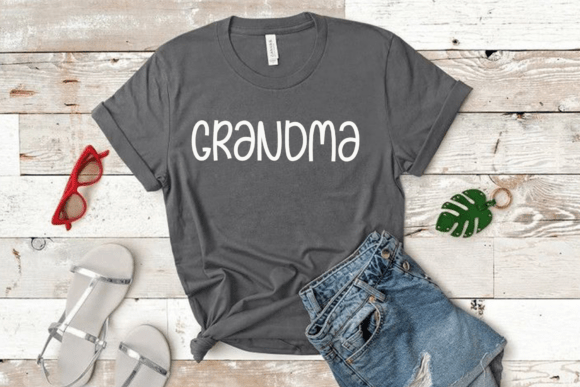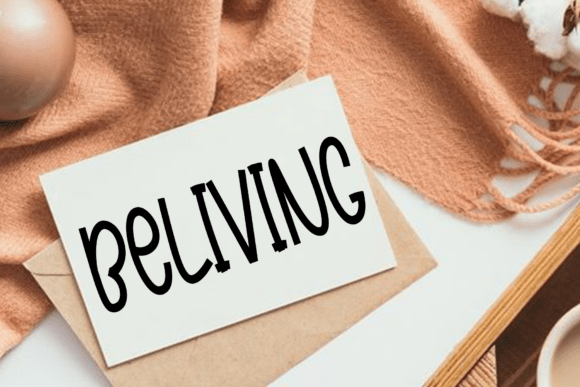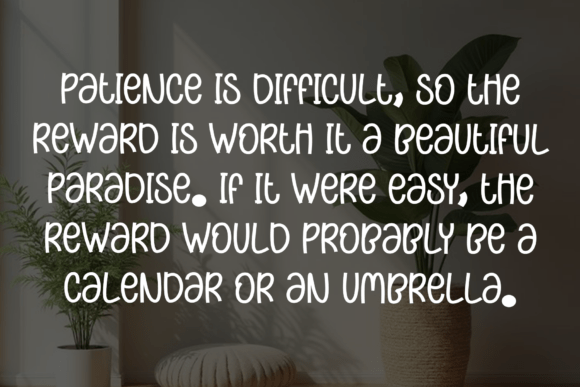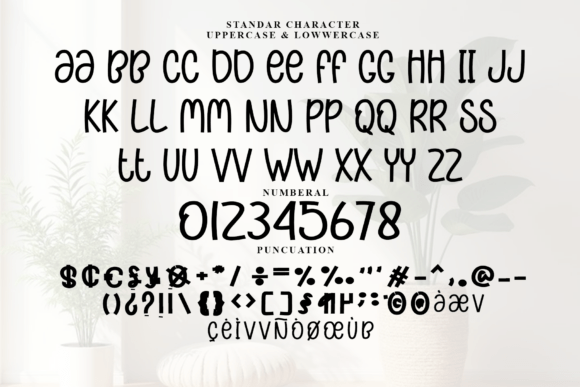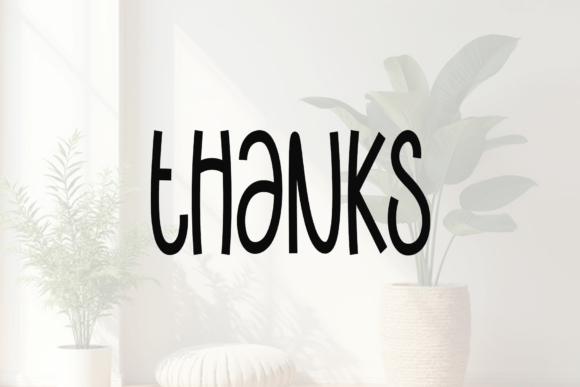
Introducing Black History Font: A Stylish Handwritten Typeface with a Unique Charm
Are you tired of using the same old fonts in your designs? Look no further! Black History Font is a stylish handwritten font that blends organic charm with a strong typographic presence, making it perfect for designers and crafters looking to add a touch of personality to their work.
What Makes Black History Font Special?
Black History Font features thick, solid strokes with a distinct “bouncy” rhythm that gives it a friendly and approachable character. This unique trait sets it apart from other fonts and makes it perfect for designs that need a bit of personality. Whether you’re working on outdoor lifestyle branding, organic product packaging, travel-themed graphics, or rustic event invitations, Black History Font is the perfect choice.
Part of the “Unique and Professional” Collection
Black History Font is part of the “Unique and Professional” collection, which means it’s not only stylish but also highly versatile. Its well-balanced proportions ensure it remains impactful even in busy designs, making it perfect for a wide range of applications. Whether you’re designing a logo, brochure, or social media graphic, Black History Font is sure to make a statement.
Perfect for Outdoor Lifestyle Branding
If you’re working on outdoor lifestyle branding, Black History Font is the perfect choice. Its rugged, handmade look is perfect for brands that want to convey a sense of adventure and freedom. Whether you’re designing a logo for a hiking company or a camping gear brand, Black History Font is sure to resonate with your target audience.
Organic Product Packaging
Black History Font is also perfect for organic product packaging. Its natural, earthy feel is perfect for brands that want to convey a sense of sustainability and eco-friendliness. Whether you’re designing packaging for a food product, skincare brand, or home goods company, Black History Font is sure to add a touch of warmth and personality to your design.
Travel-Themed Graphics
If you’re working on travel-themed graphics, Black History Font is a great choice. Its adventurous, handmade look is perfect for travel companies that want to convey a sense of excitement and exploration. Whether you’re designing a brochure for a travel agency or a social media graphic for a tourism board, Black History Font is sure to capture the spirit of adventure.
Rustic Event Invitations
Finally, Black History Font is perfect for rustic event invitations. Its handmade look is perfect for events that want to convey a sense of warmth and personality. Whether you’re designing invitations for a wedding, birthday party, or corporate event, Black History Font is sure to add a touch of elegance and sophistication to your design.
Key Features of Black History Font
- Stylish handwritten font: Black History Font is a unique and stylish handwritten font that adds a touch of personality to any design.
- Organic charm: Black History Font features thick, solid strokes with a distinct “bouncy” rhythm that gives it a friendly and approachable character.
- Strong typographic presence: Despite its organic charm, Black History Font has a strong typographic presence that makes it perfect for a wide range of applications.
- Well-balanced proportions: Black History Font has well-balanced proportions that ensure it remains impactful even in busy designs.
- Part of the “Unique and Professional” collection: Black History Font is part of a collection of unique and professional fonts that are perfect for designers and crafters.
In conclusion, Black History Font is a stylish handwritten font that blends organic charm with a strong typographic presence. Its unique features make it perfect for a wide range of applications, from outdoor lifestyle branding to rustic event invitations. Whether you’re a designer or crafter, Black History Font is sure to add a touch of personality and elegance to your work.